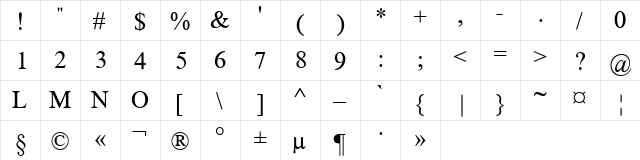
Pak Nastaleeq Regular
| Foundry | Mohsin Shafeeque Hijazee |
| Designer | Mohsin Shafeeque Hijazee |
Design Context for Pak Nastaleeq Typeface
Pak Nastaleeq takes a measured approach to typography — its balanced proportions and neutral character make it a reliable workhorse for both digital and print work.